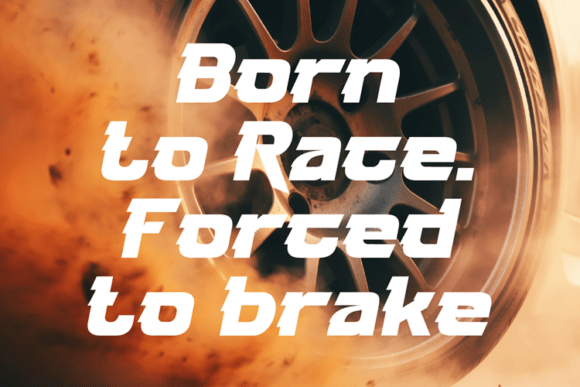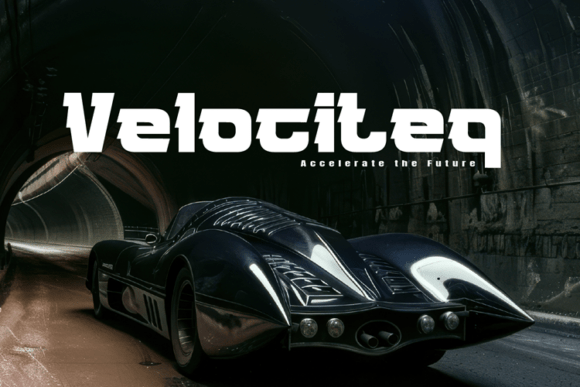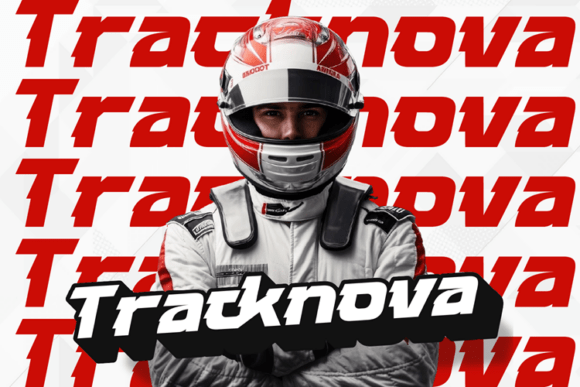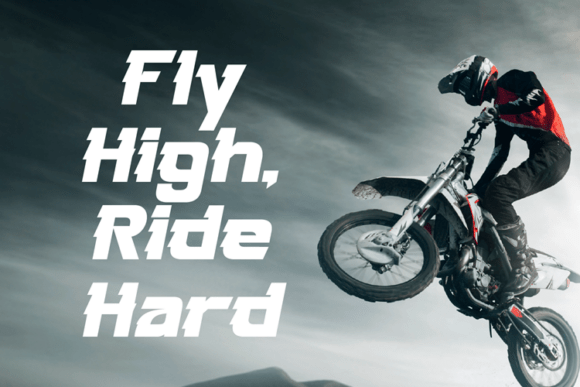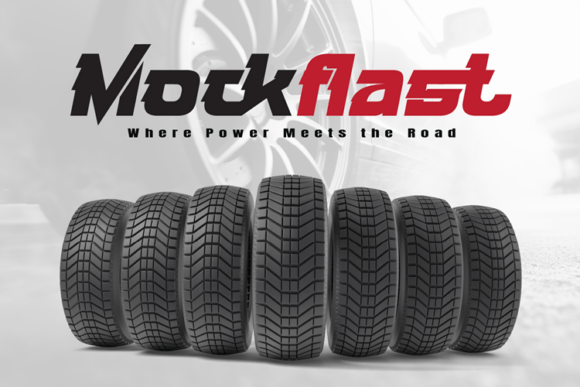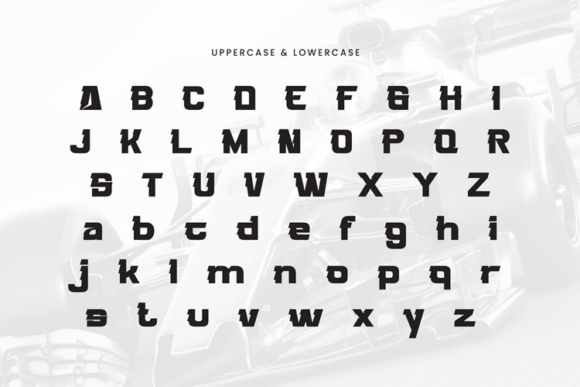
Ignite Your Designs with Afigre Racing Font
In the world of design, typography plays a crucial role in conveying the message and tone of a project. For designers and crafters looking to add a touch of speed and dynamism to their work, Afigre Racing Font is an excellent choice. This stalwart display font is distinguished by its assertive and dynamic appeal, making it perfect for projects that require a bold and forward-facing ambiance.
Inspired by the Thrill of Motorsports
Afigre takes cues from the thrill and velocity of the motorsports realm, integrating crisp incisions, leaning angles, and streamlined structures to ensure a commanding typographic impact. The font’s design is inspired by the speed and agility of racing, making it an ideal choice for projects related to motorsports, esports, and automotive branding.
Key Features of Afigre Racing Font
- Assertive and Dynamic Appeal: Afigre’s bold and dynamic design makes it perfect for headlines, titles, and other display text.
- Crip Incisions and Leaning Angles: The font’s crisp incisions and leaning angles give it a sense of speed and movement.
- Streamlined Structures: Afigre’s streamlined structures ensure a smooth and cohesive look, even at large sizes.
- Robust and Lively Letterforms: The font’s letterforms are robust and lively, with distinctively razor-sharp edges that deliver high impact.
- Versatility: Afigre offers versatility in your designs with two styles to choose from – Regular and Italic.
Perfect for Speed-Centric Industries
Afigre is a tour de force in speed-centric industries, each character echoing the rhythm of stylized slashes and a perpetual forward momentum. The font’s future-facing, masculine aura makes it an excellent choice for:
- Racing Posters: Create eye-catching racing posters that capture the thrill and excitement of the sport.
- Automobile Branding: Use Afigre to create bold and dynamic branding for cars, racing teams, and automotive companies.
- Esports Visuals: Add a touch of speed and agility to your esports visuals, including logos, jerseys, and marketing materials.
- Apparel Crafting: Create stylish and bold apparel designs that showcase your brand’s personality.
Why Choose Afigre Racing Font?
With Afigre, you can trust that your designs will be steered at full speed! The font’s unique features and versatility make it an excellent choice for designers and crafters looking to add a touch of dynamism to their work. Here are just a few reasons why you should choose Afigre:
- High-Impact Typography: Afigre’s bold and dynamic design ensures high-impact typography that grabs attention.
- Flexibility: The font’s two styles (Regular and Italic) offer flexibility in your designs.
- Easy to Read: Despite its bold design, Afigre is easy to read, even at small sizes.
- Unique and Memorable: Afigre’s distinctive design makes it a unique and memorable addition to any project.
In conclusion, Afigre Racing Font is an excellent choice for designers and crafters looking to add a touch of speed and dynamism to their work. With its assertive and dynamic appeal, crisp incisions, leaning angles, and streamlined structures, Afigre is perfect for projects that require a bold and forward-facing ambiance. Trust Afigre to steer your designs at full speed and take your projects to the next level!